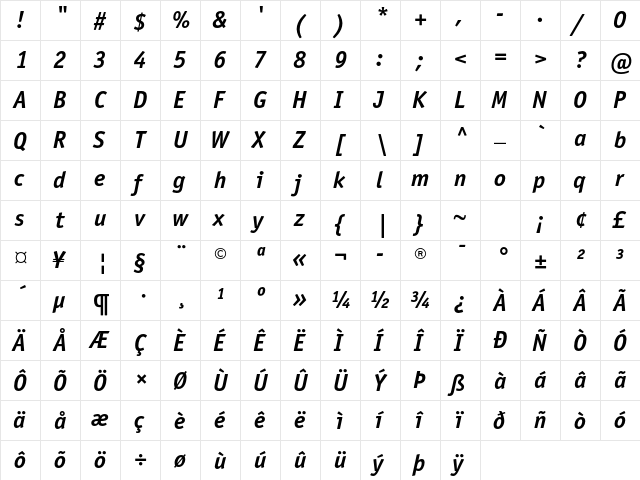
ITC Officina Sans Std Bold Italic Font Preview
| Designer | Erik Spiekermann |
Design Context for ITC Officina Sans Std Typeface
ITC Officina Sans Std takes a measured approach to typography — its balanced proportions and neutral character make it a reliable workhorse for both digital and print work. The dynamic lean of this cut emphasises speed and emphasis in any layout. The heavy weight commands attention and anchors typographic hierarchies.
Pro Tip: Try ITC Officina Sans Std for annotation and caption copy alongside an upright companion — the contrast in angle creates a dynamic but ordered typographic system.